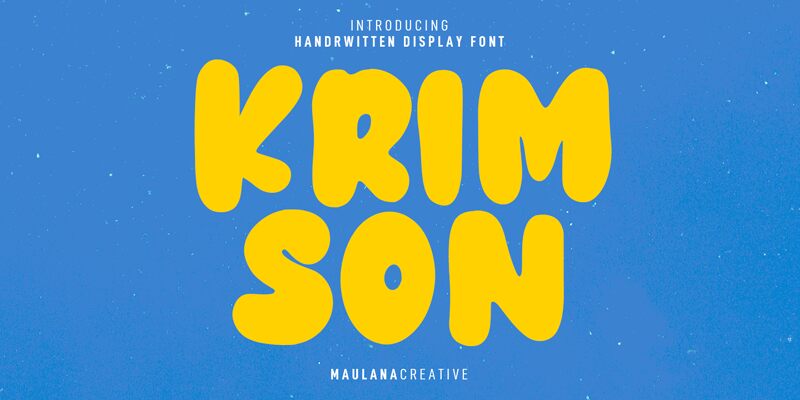
Krimson Free Regular
Krimson, the extra-bold display font by Maulana Creative, is here to add a playful twist to your creative projects. Its cartoon style is perfect for designs that call for a fun and lively touch. The thick strokes of this typeface make it stand out on posters, advertisements, and packaging materials. Krimson's wide width also makes it ideal for headlines and titles that need to grab attention immediately. It's versatile enough to work well with both digital and print mediums, from social media graphics to product packaging. Add some personality to your next project with Krimson!